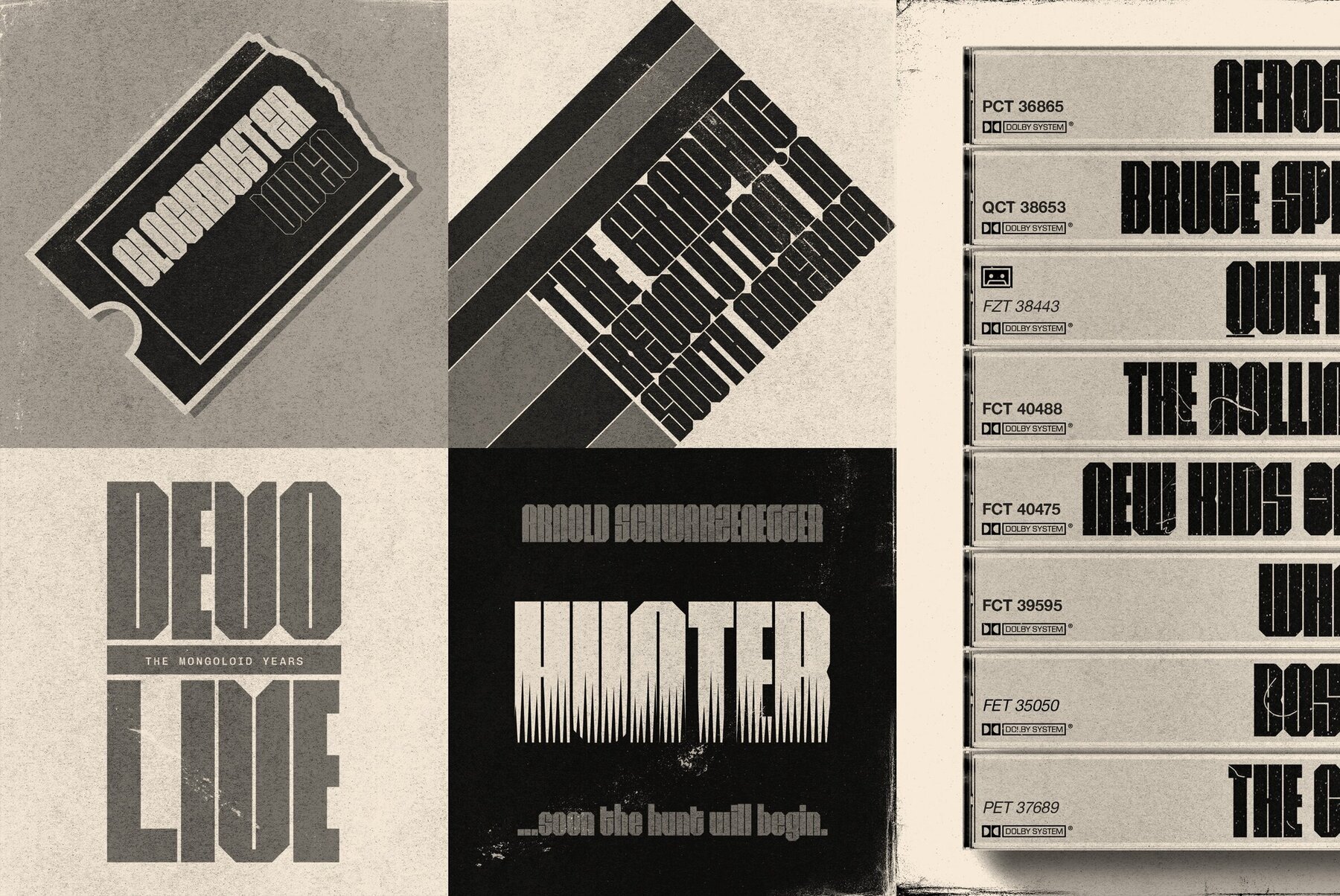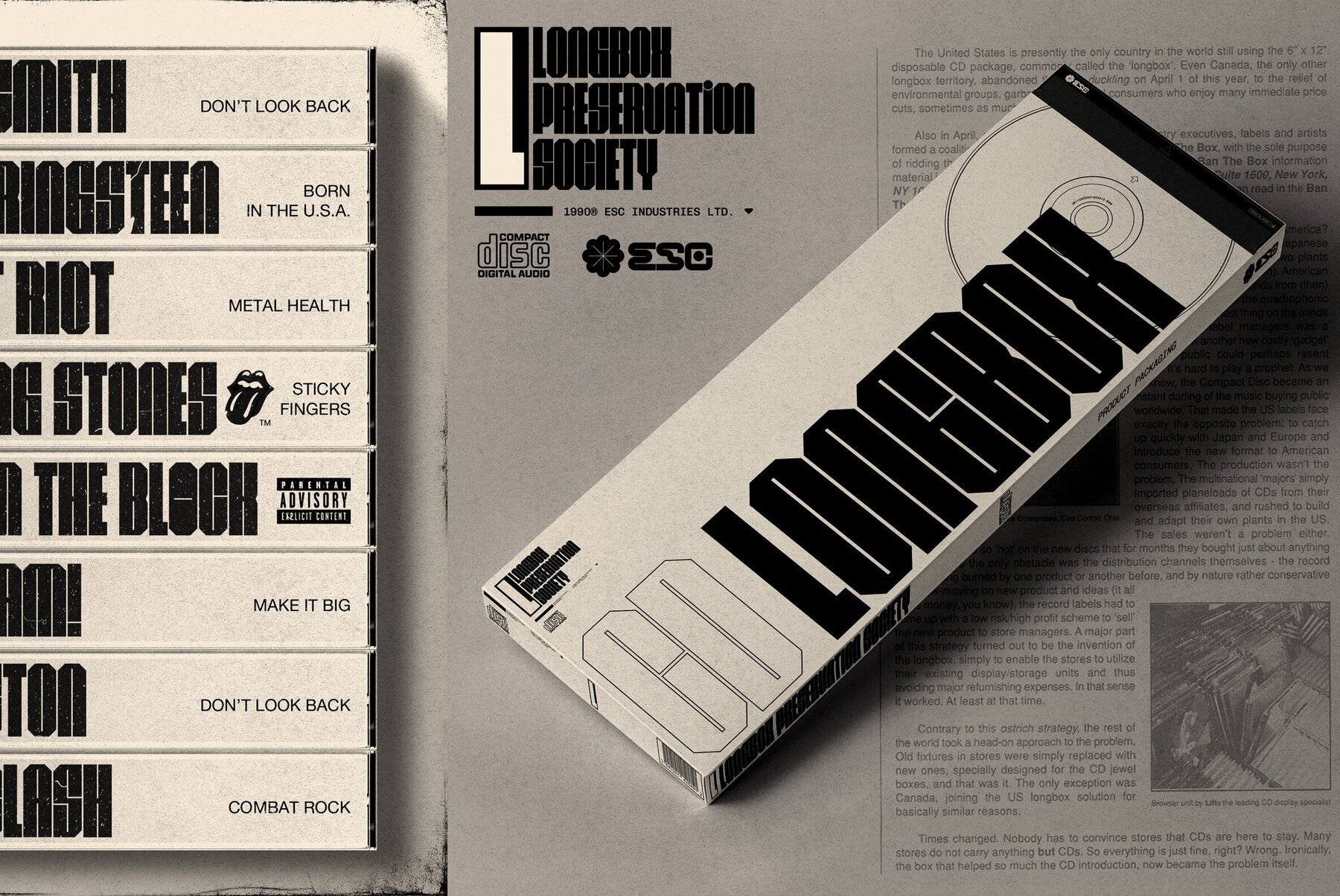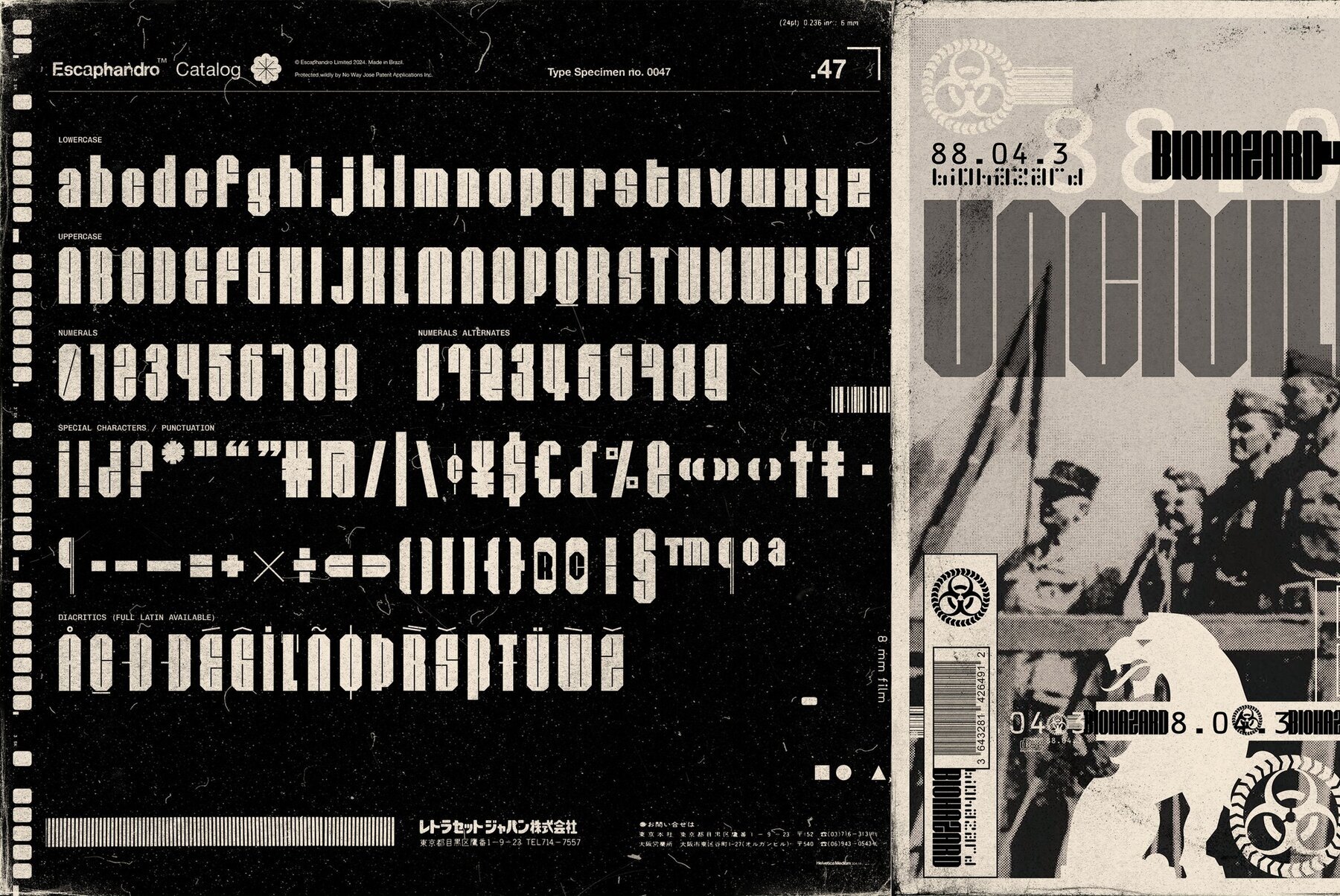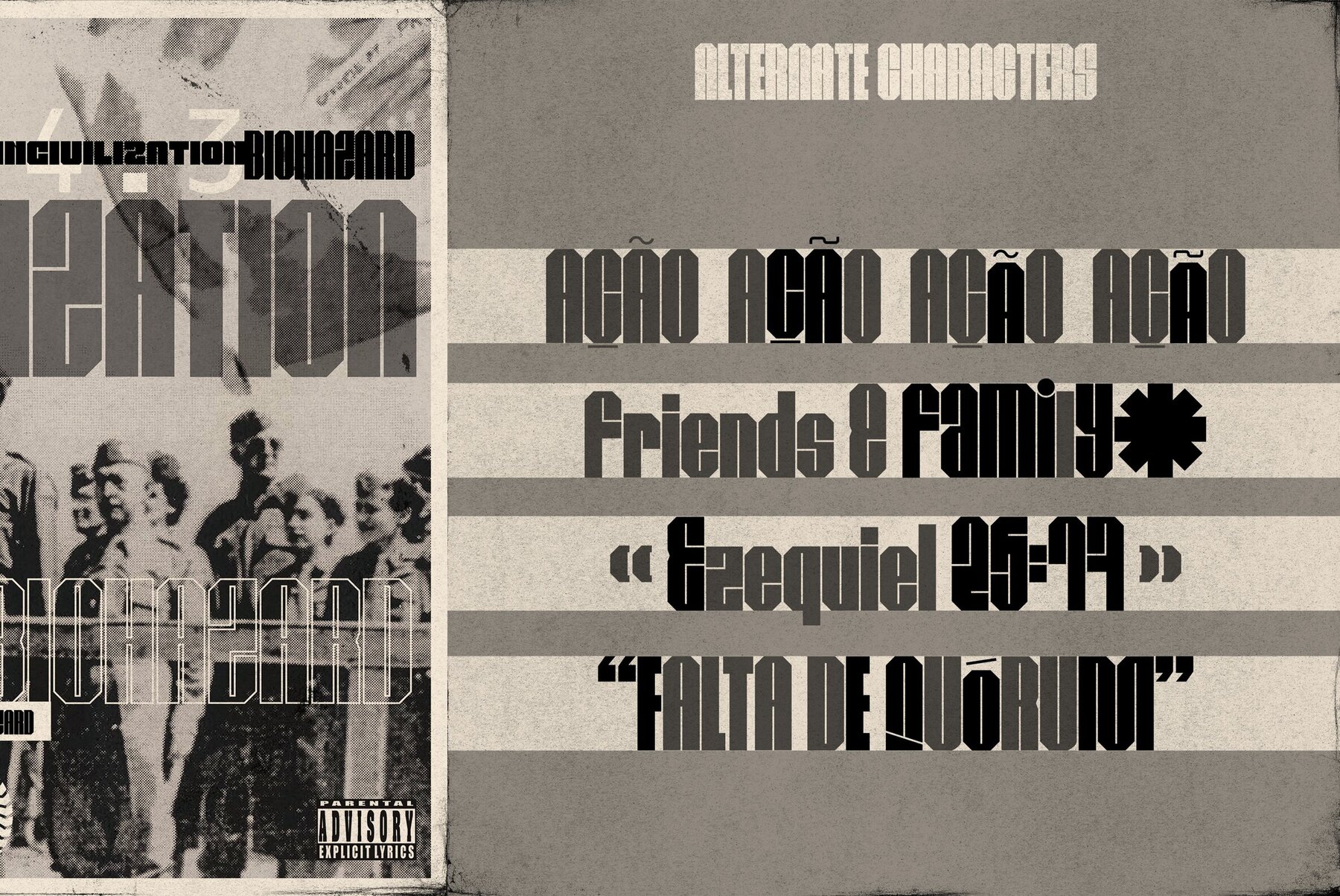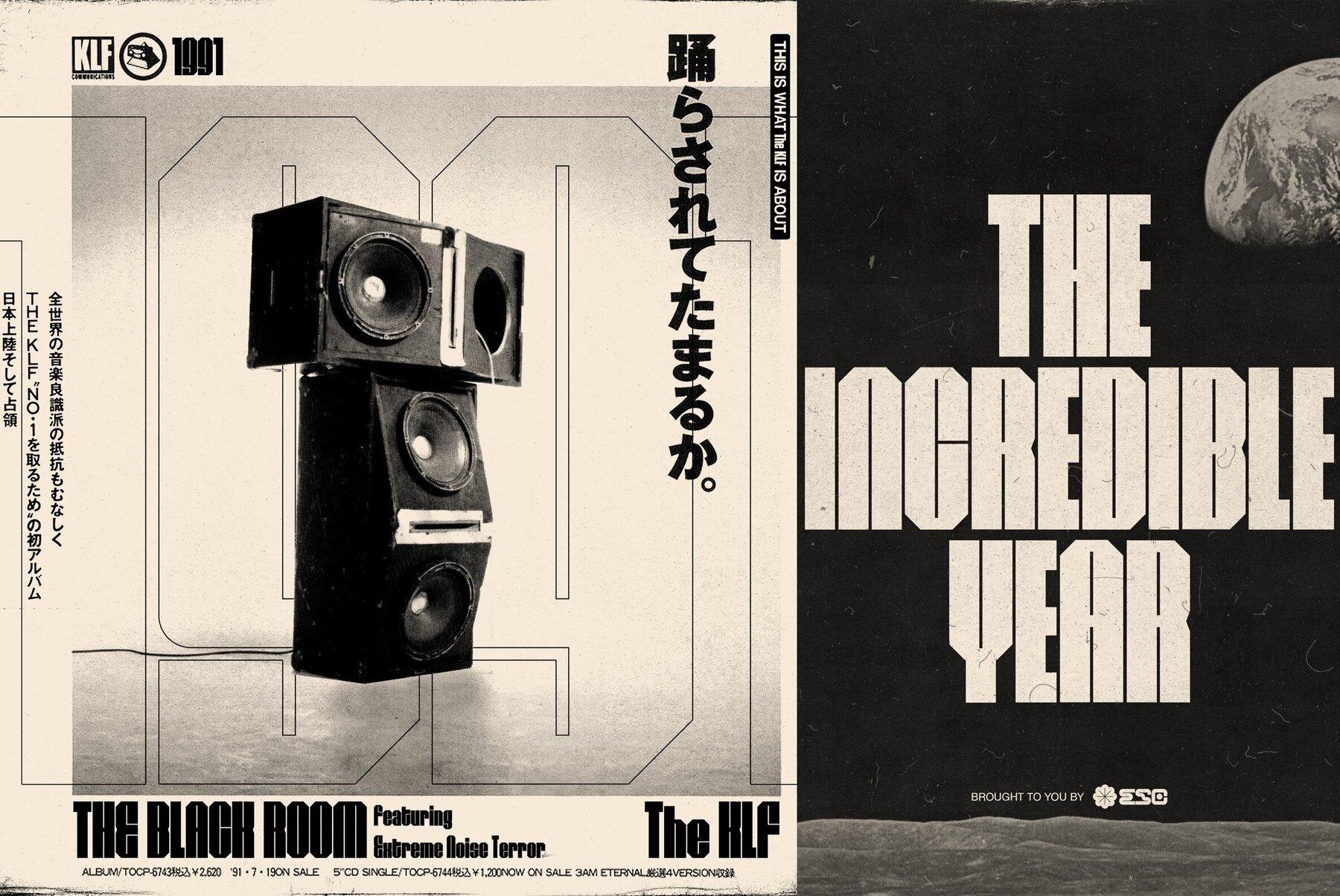
Olé Reta Font
Ole Reta
Olá Reta is a variant of Olé, taking another route in visual influences from the 1960s/70s graphic design (Wim Crouwel, ITC typefaces) as a way to evoke a more industrial-techno feel. Its geometric construction and super tight spacing is meant for large size applications and bold graphic compositions.